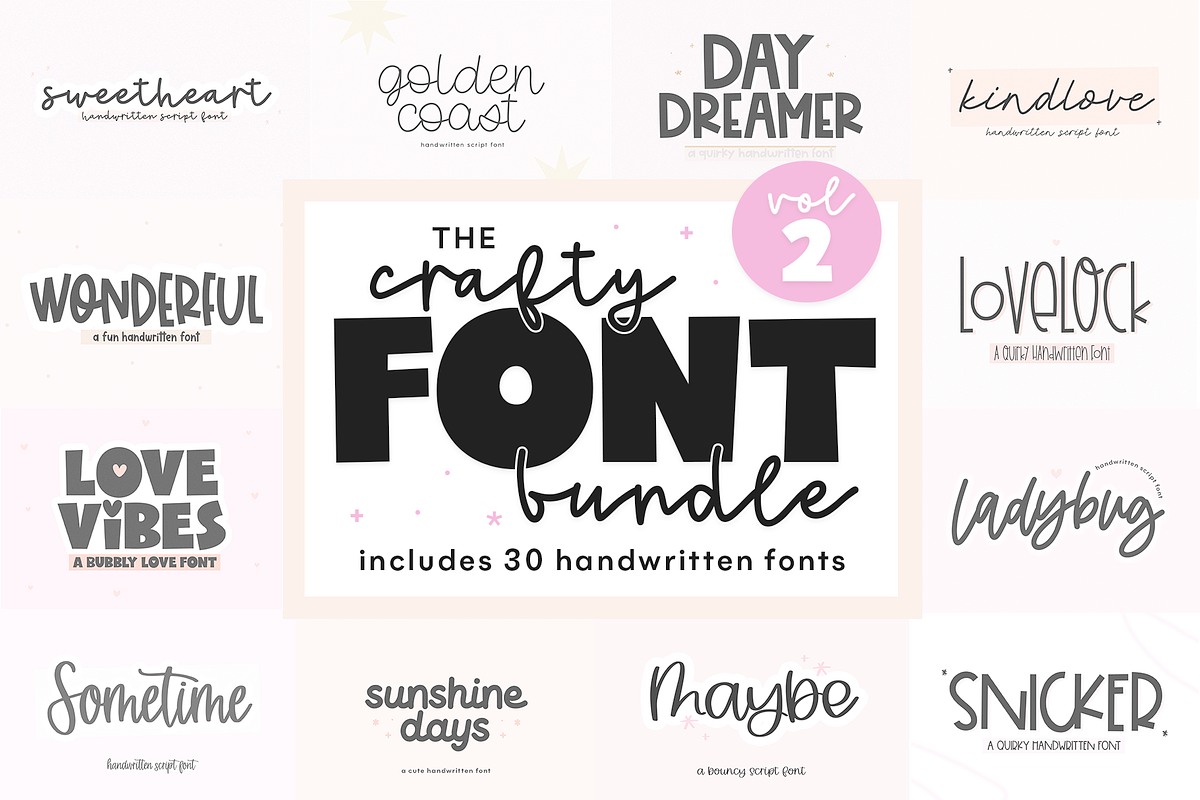
Cute Font Bundle | 30 Fonts Free Download
Cute Font Bundle | 30 Fonts Free Download is an adorable collection packed with fun, playful, and sweet typefaces—perfect for children’s designs, kawaii-themed projects, greeting cards, stickers, social media graphics, and more! With a wide variety of styles from bubbly scripts to quirky sans serifs, this bundle gives you endless options for adding charm and joy to your creative work.
Each font in the Cute Font Bundle | 30 Fonts Free Download is crafted to bring personality and friendliness to your typography. Whether you're designing for birthdays, school projects, small business branding, or handmade goods, this bundle has the perfect font to make your designs pop with cuteness.